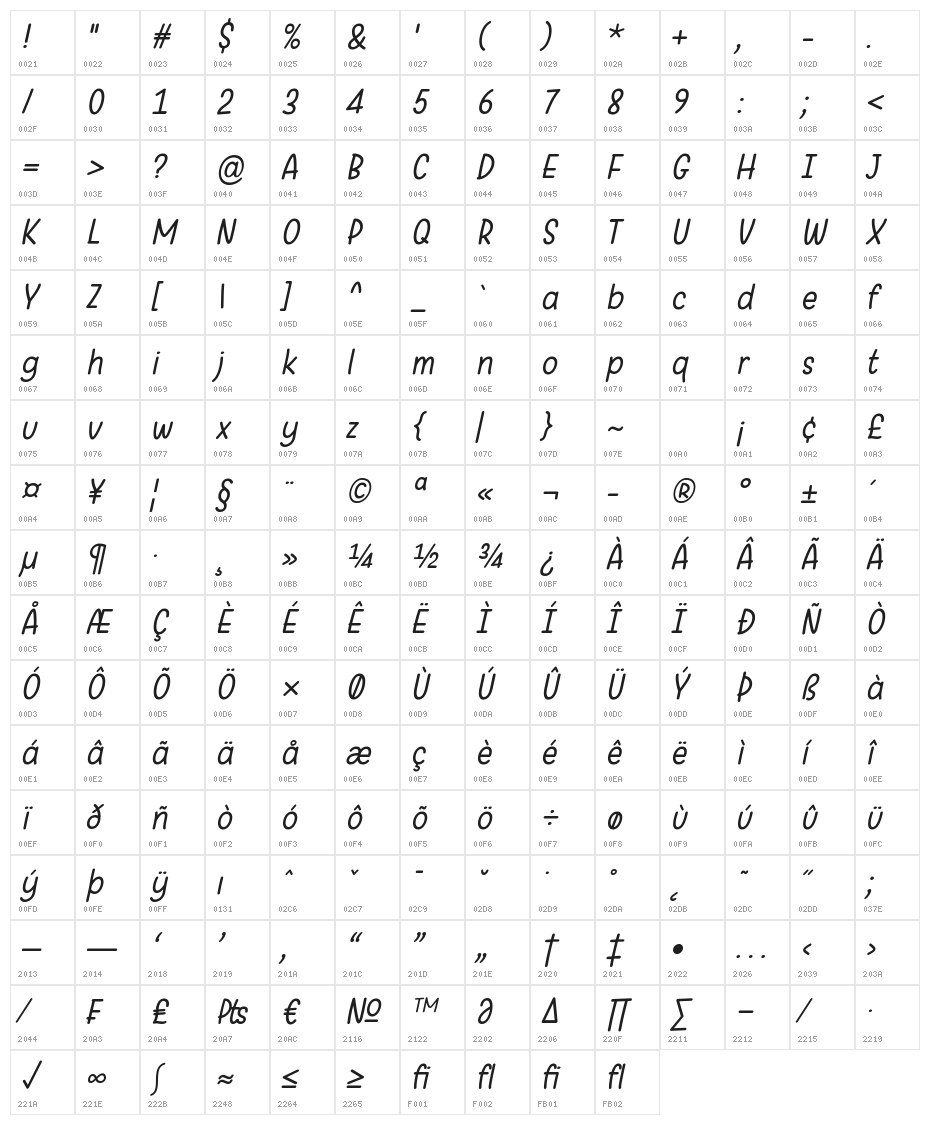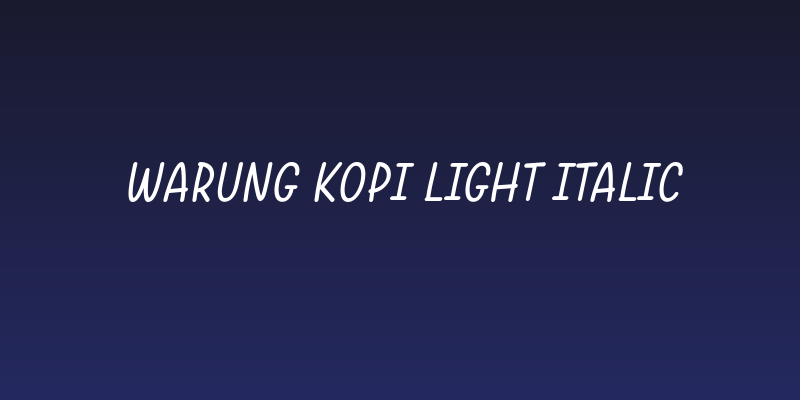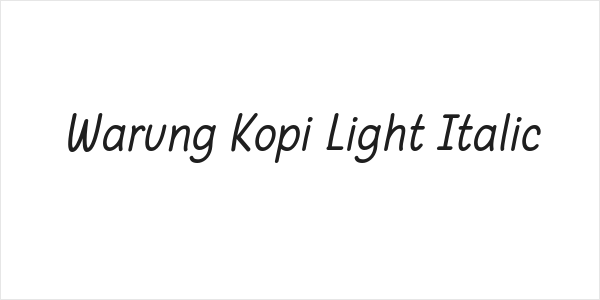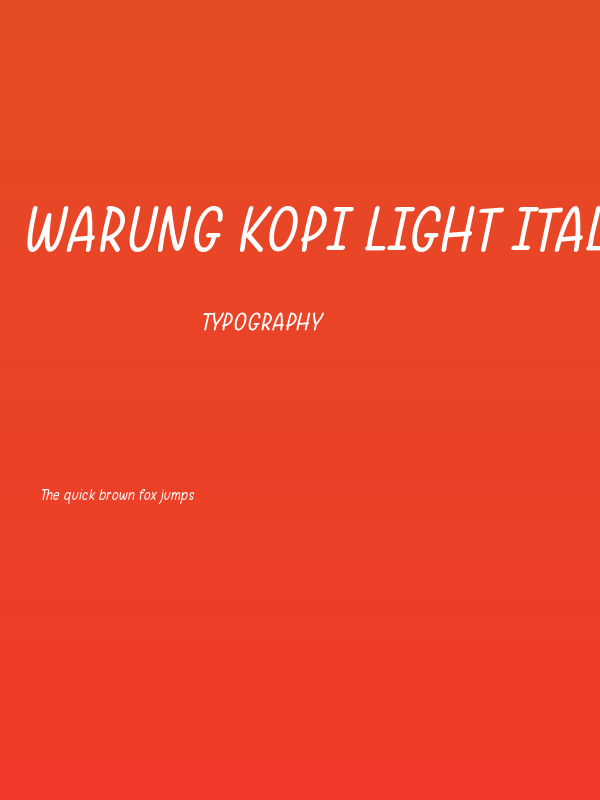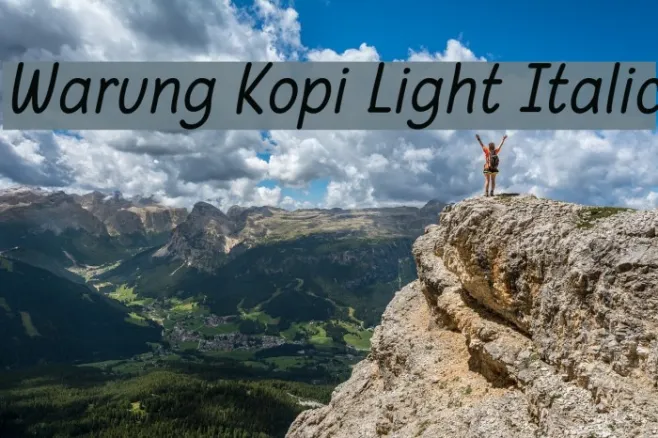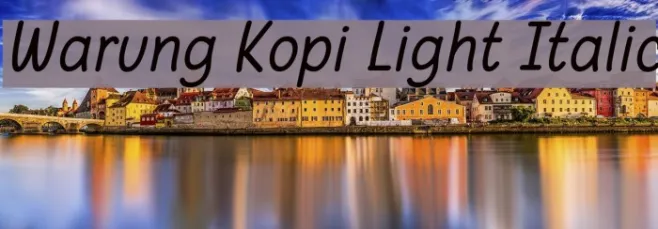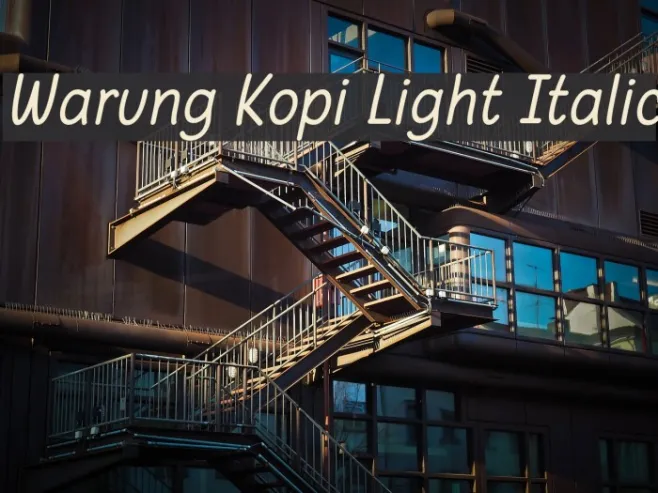
Warung Kopi Light Italic Font
Warung Kopi Light Italic Description
This font features a smooth, flowing script style with a light weight and italicized form. The characters are slightly slanted, giving a sense of motion and elegance. The strokes are consistent and rounded, providing a friendly and approachable appearance. The uppercase and lowercase letters maintain a cohesive look, with a slight variation in size and form to enhance readability. The numerals and special characters are designed to match the overall style, ensuring uniformity across all text elements.
| Proposed Projects | Ideal for invitations, greeting cards, personal branding, and creative projects requiring a friendly and elegant touch. |